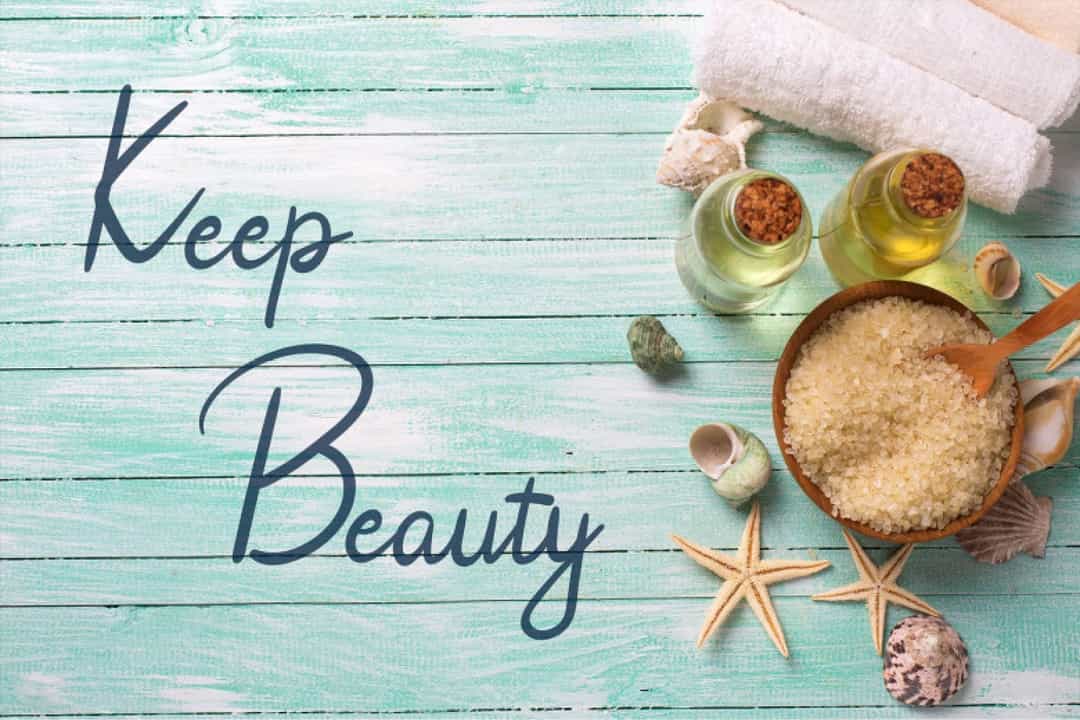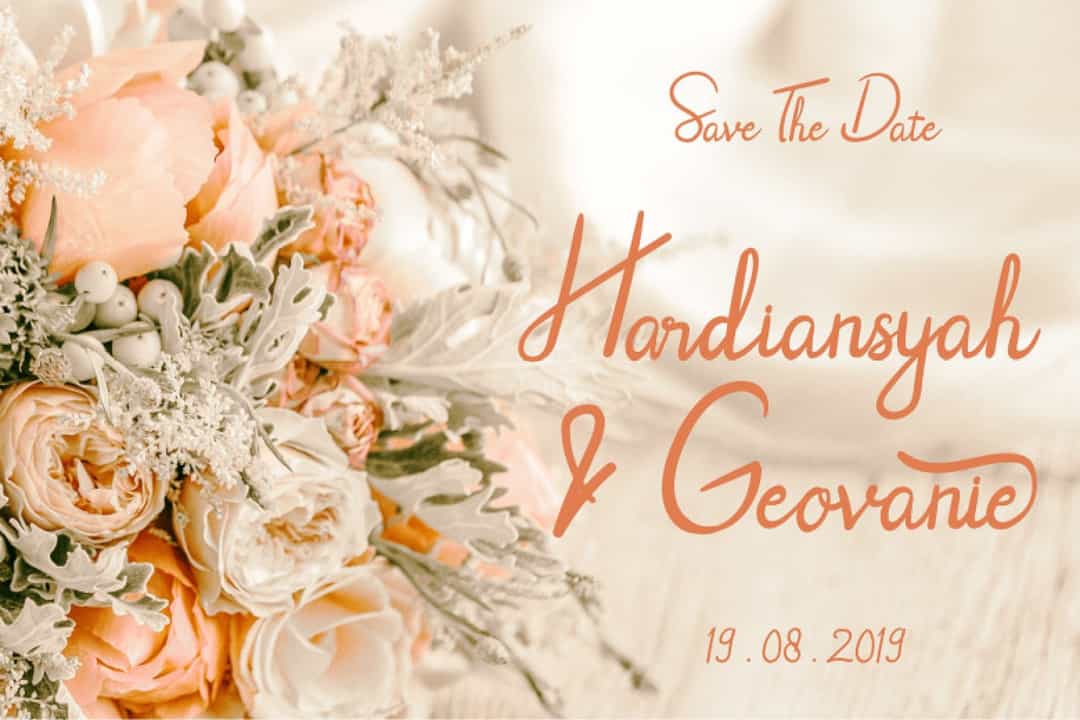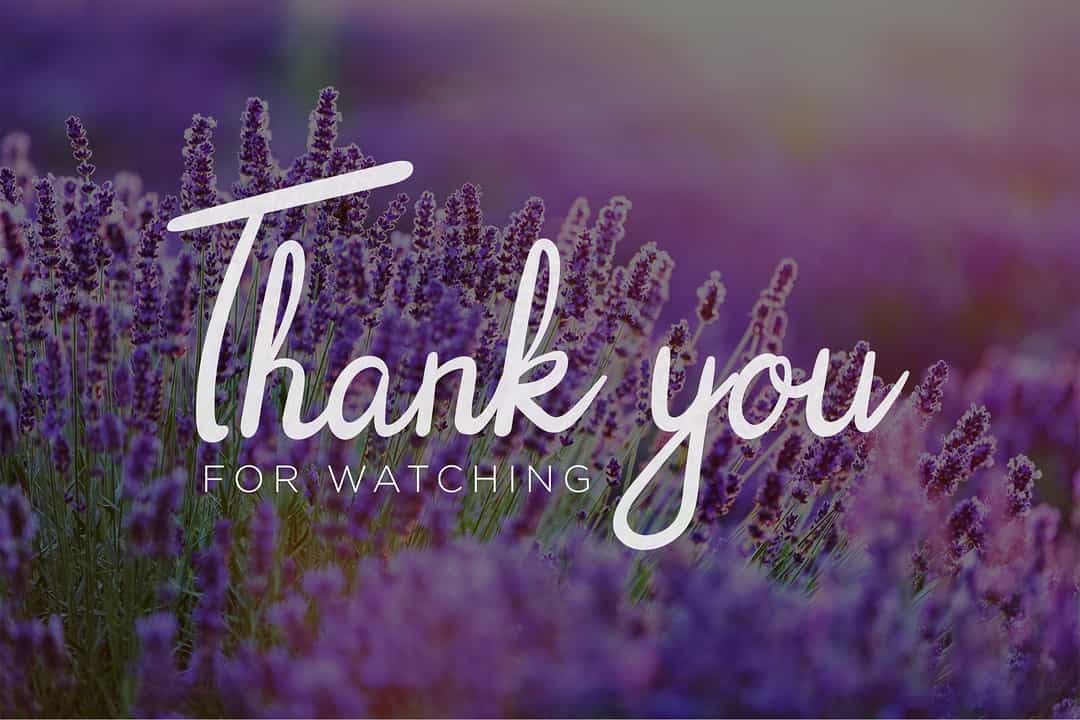
Discover Rhoselinna Handwritten Font, part of the Calligraphy Handwritten collection—a versatile and unique font perfect for adding a personal touch to your projects. Download it for free and enjoy crafting designs with style, from invitations to social media posts. This font is available exclusively for personal use, giving you the freedom to create without limits. Unlock your creativity with Rhoselinna Handwritten Font today!
Rhoselinna font is a choice for logos, branding projects, home decor designs, product packaging, mugs, inspirational quotes and posters; shopping bags and t shirts, book covers and business cards Day invitations to weddings or other events, greeting cards to let somebody know you’re actually thinking about them–photography projects and watermarks in pictures were all done with it at some time. Special occasions would be the more exclusive outings of every type around nowadays.